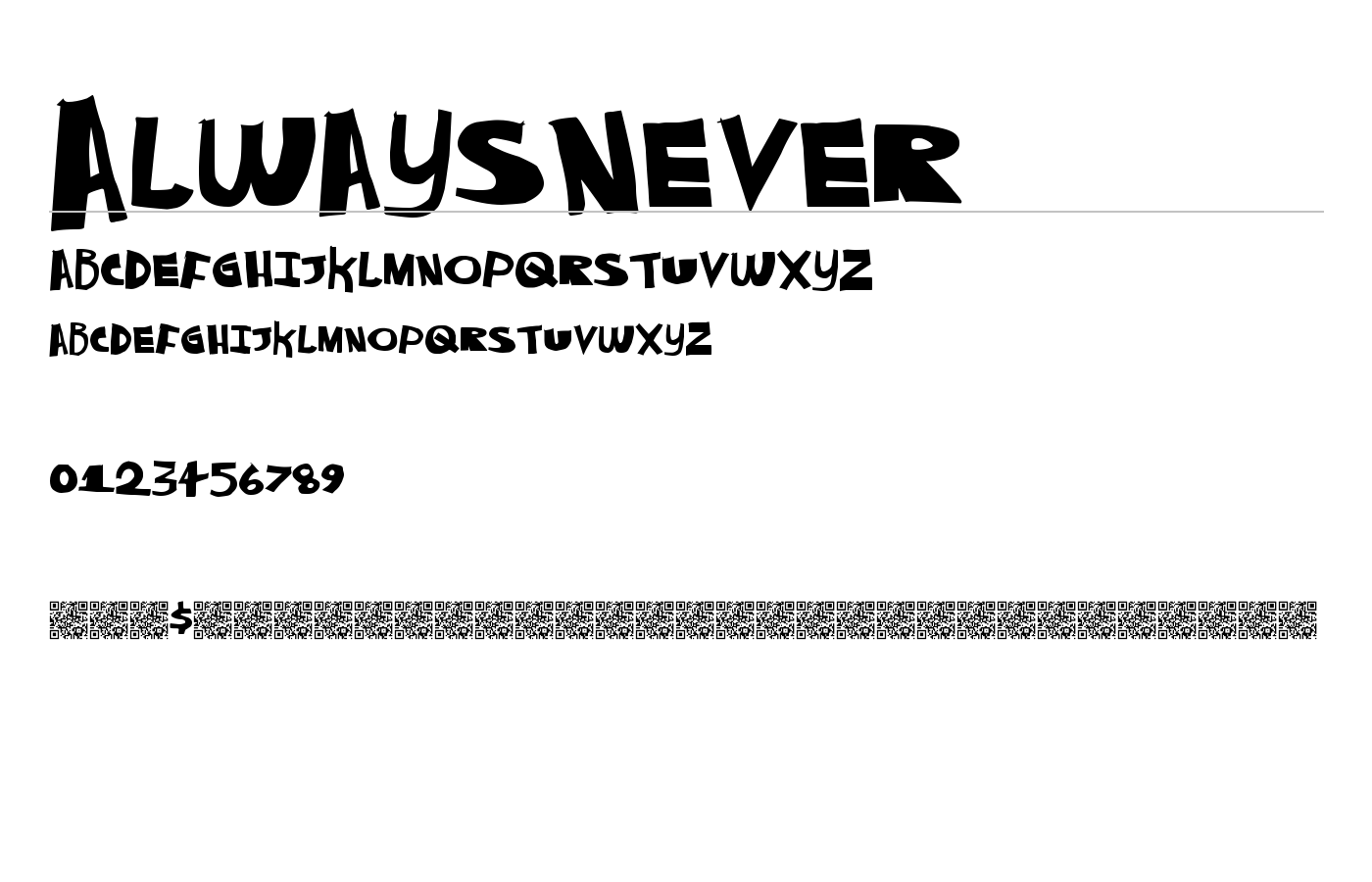
AlwaysNever is a bold, playful sans serif font with a hand-drawn, quirky character that adds personality to any design. Its irregular shapes and varying stroke widths create an energetic and informal vibe, making it perfect for creative projects, children’s content, and eye-catching headlines. This font works well where a fun, approachable mood is desired, especially in posters, logos, and casual branding.
AlwaysNever Font
About AlwaysNever Font